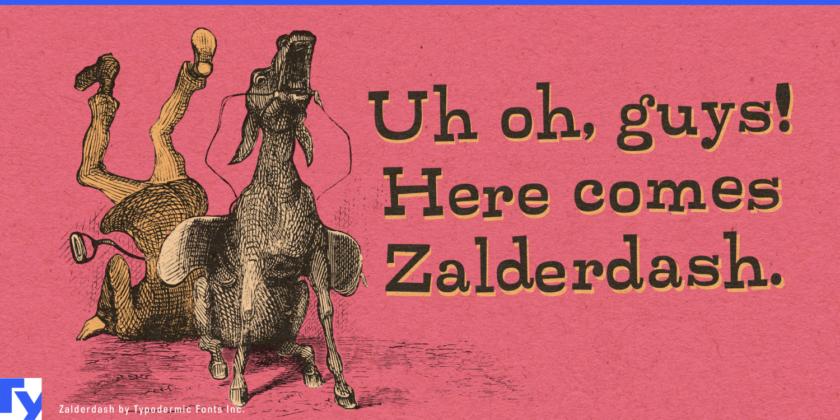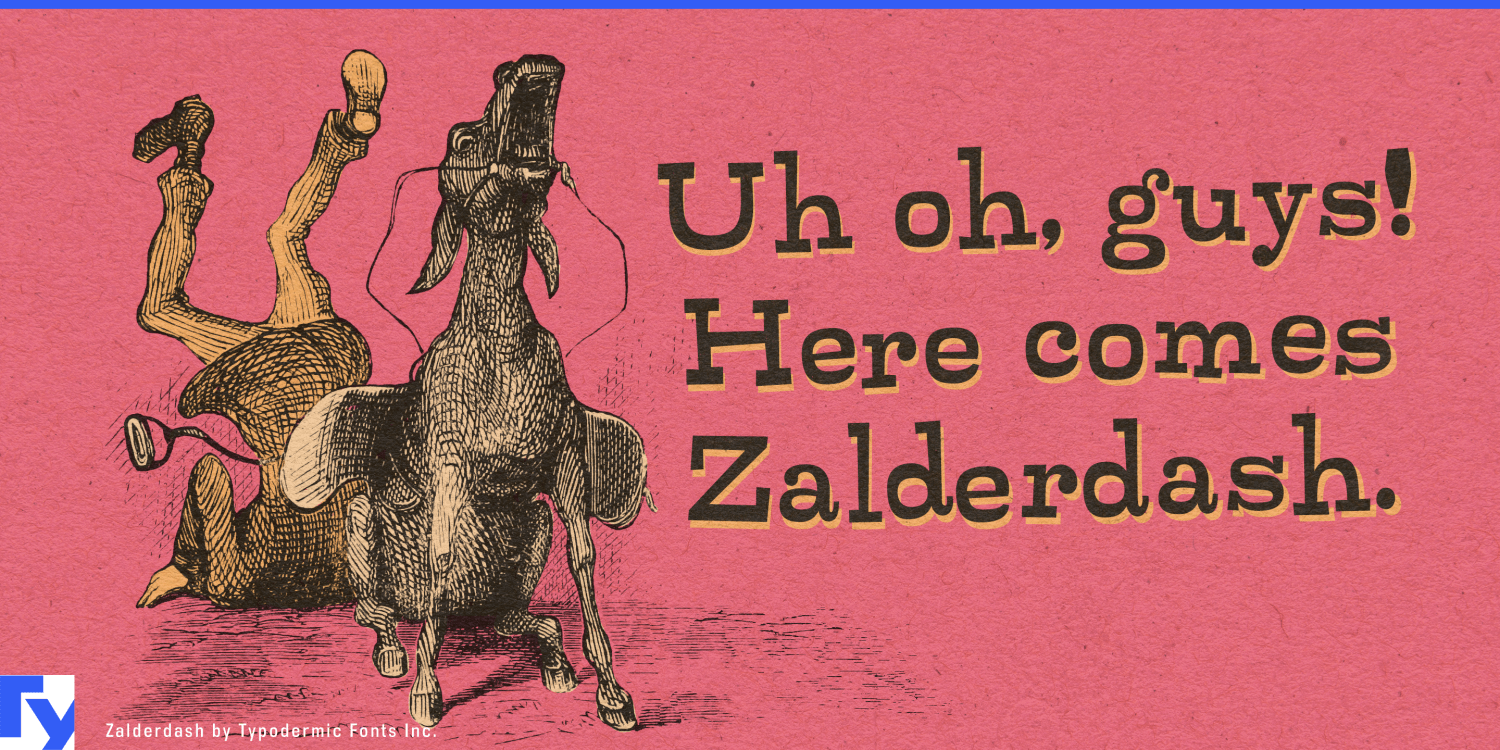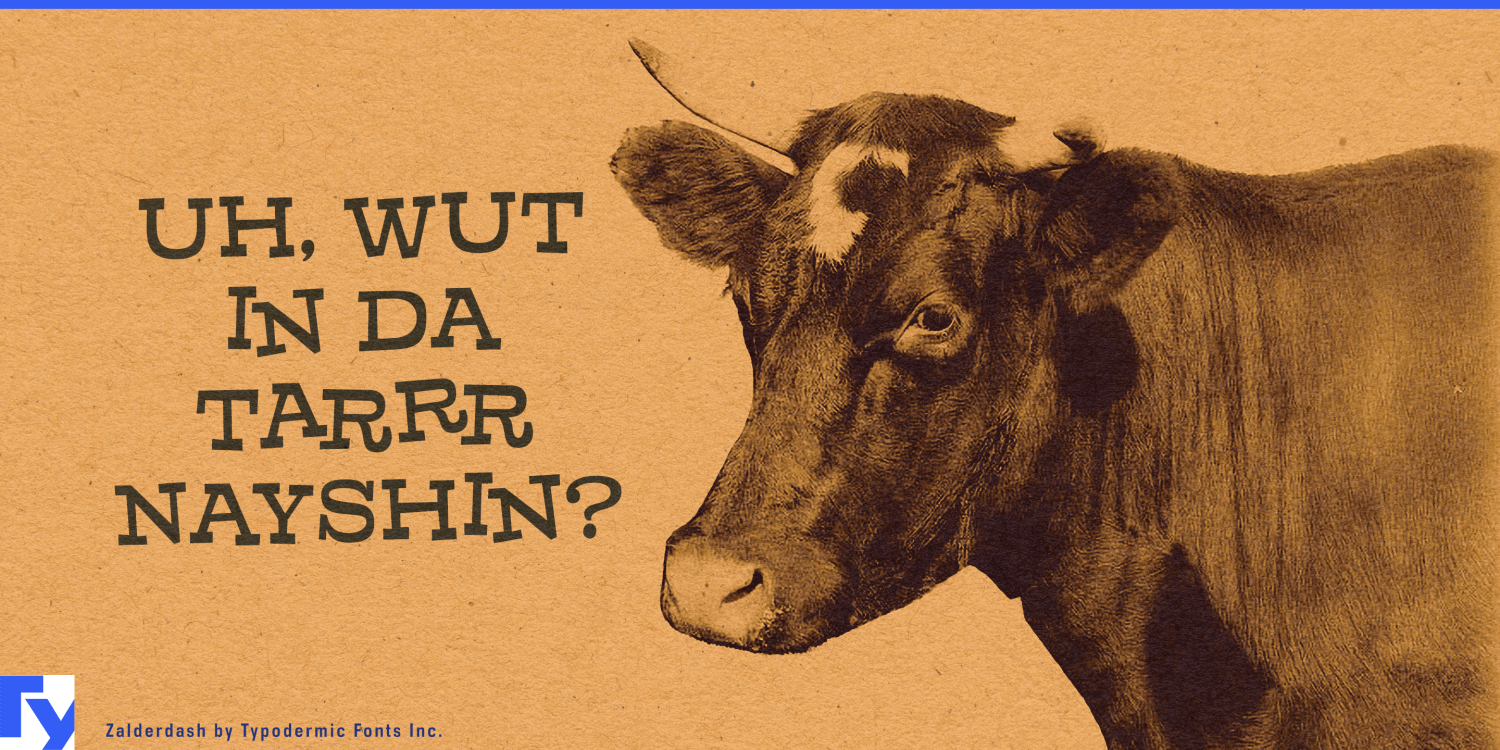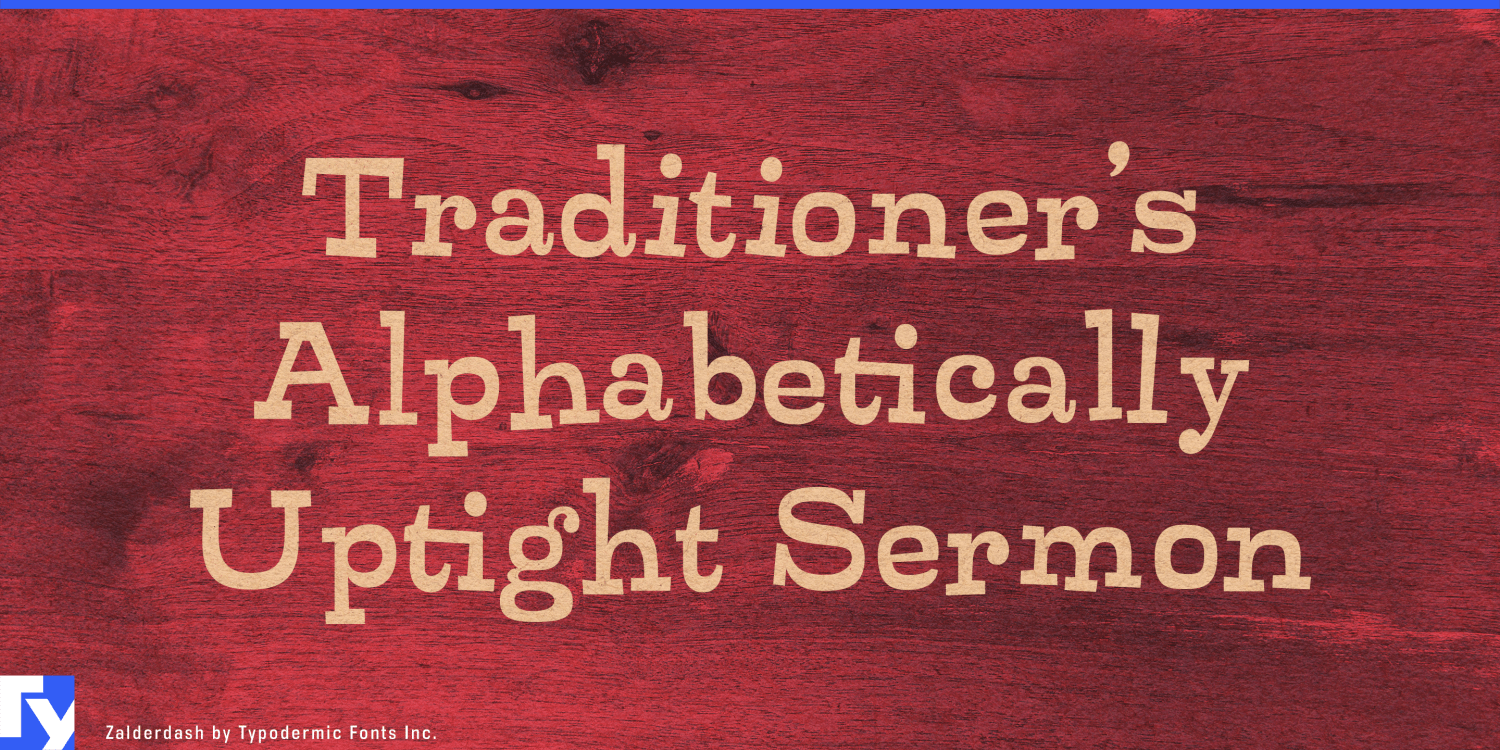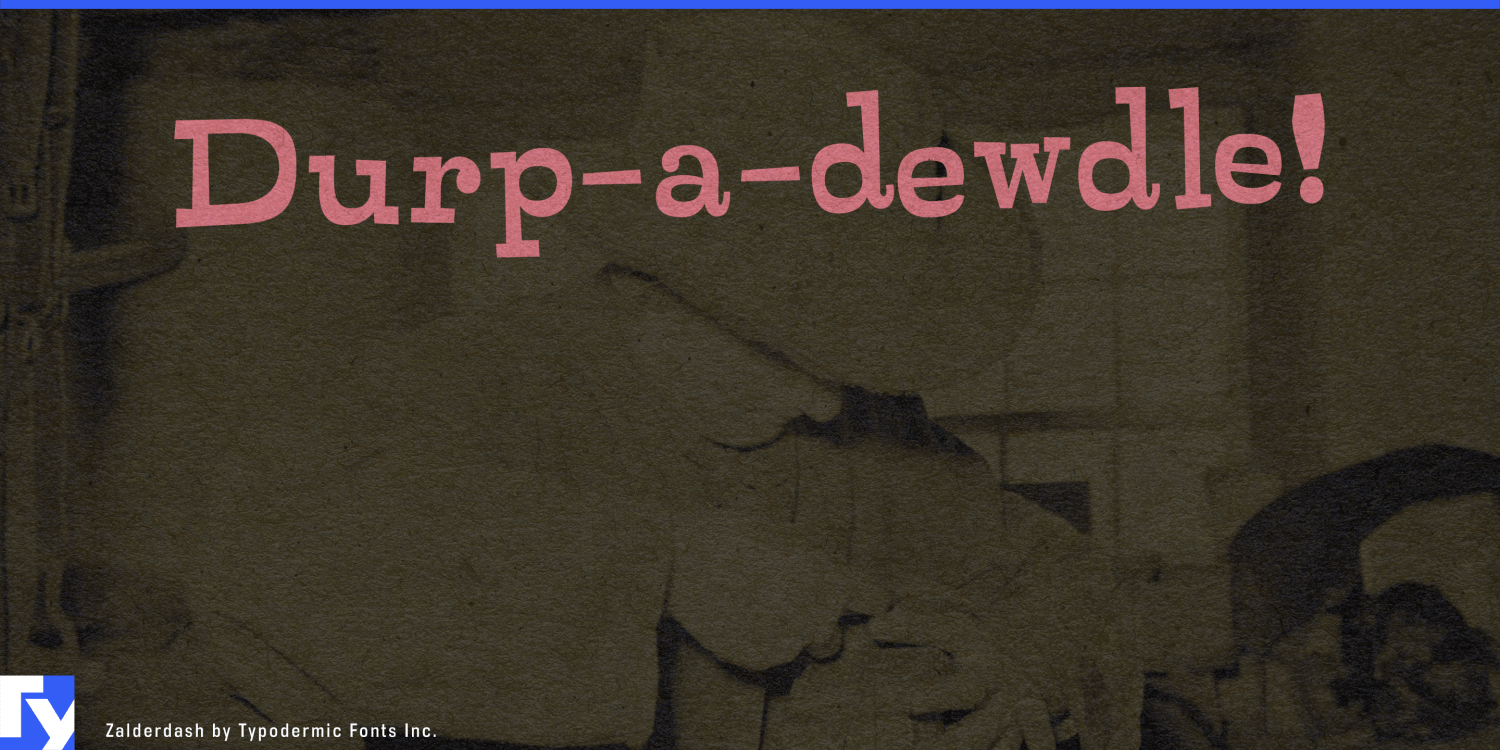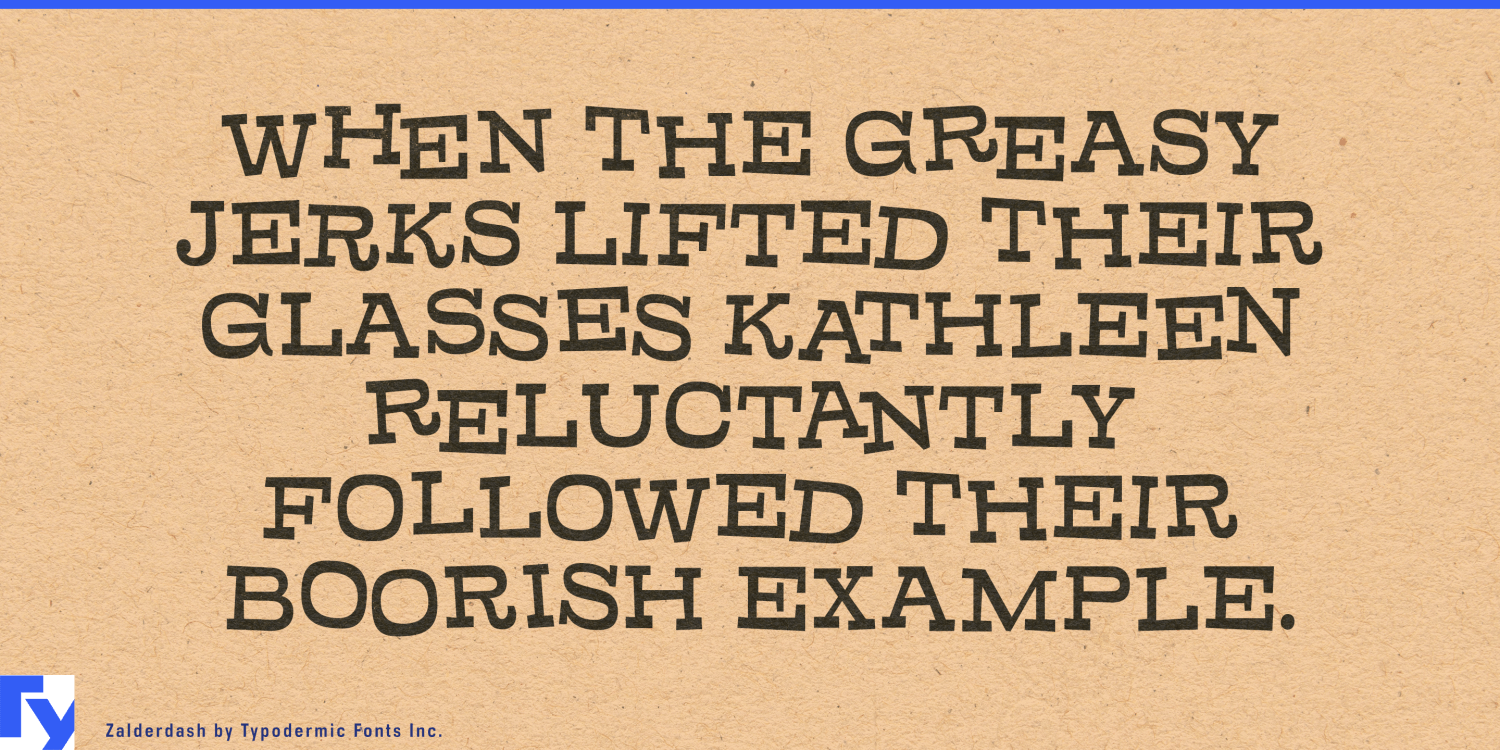
Zalderdash
About Zalderdash
Introducing Zalderdash! The wackiest, most uproarious font on the farm. This isn’t your average typeface—oh no, this is a zany slab-serif, and it’s so thick you could milk it. Our font farmers have been hard at work breeding this baby…